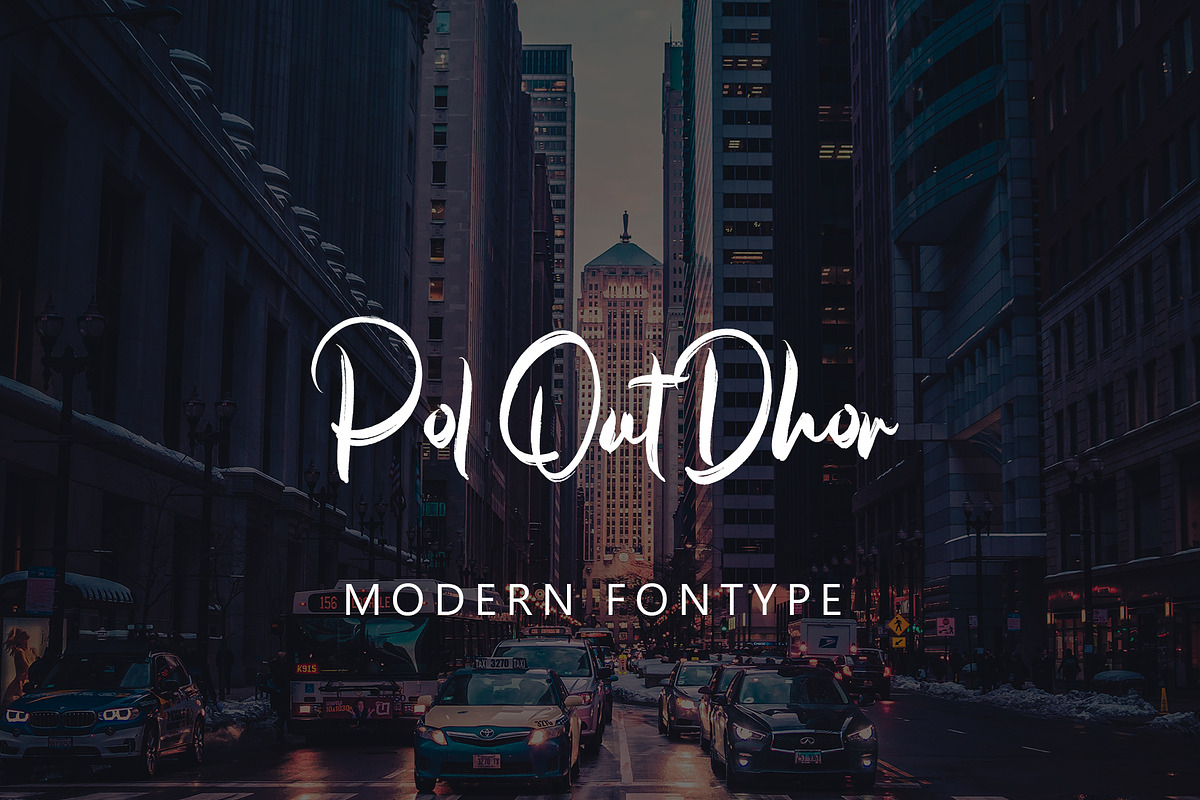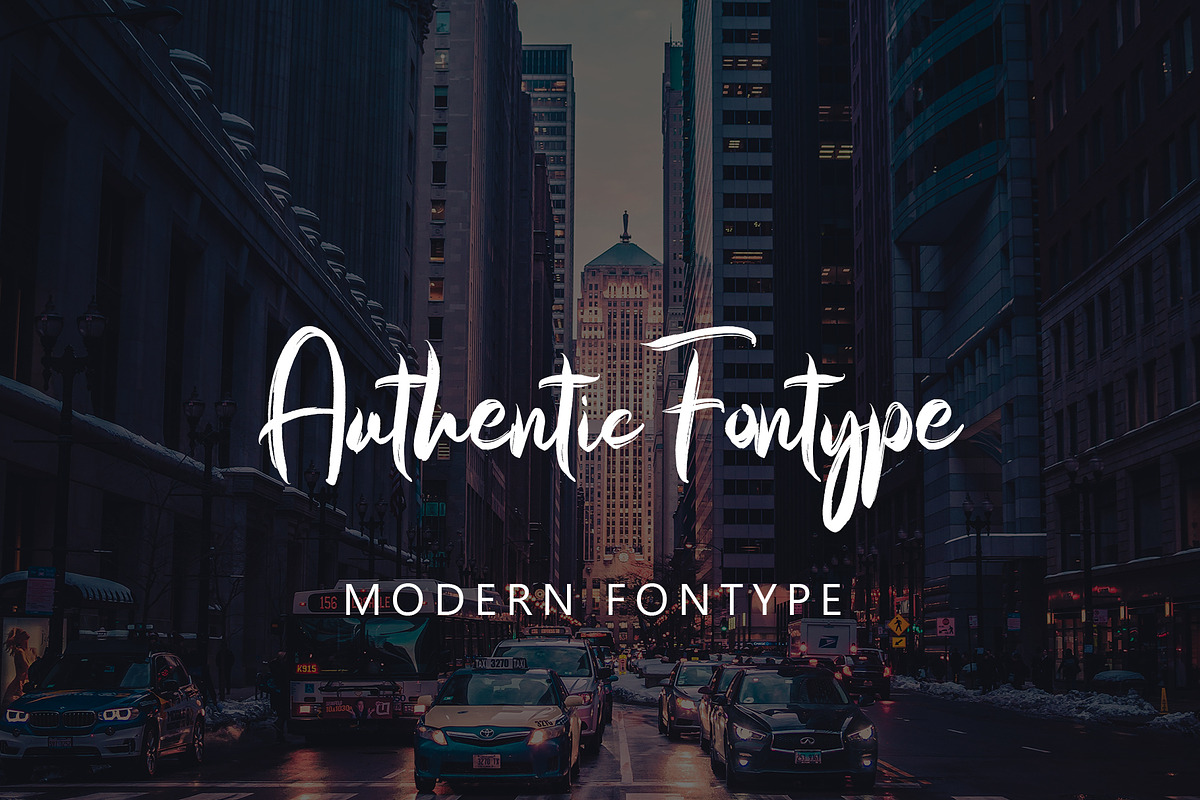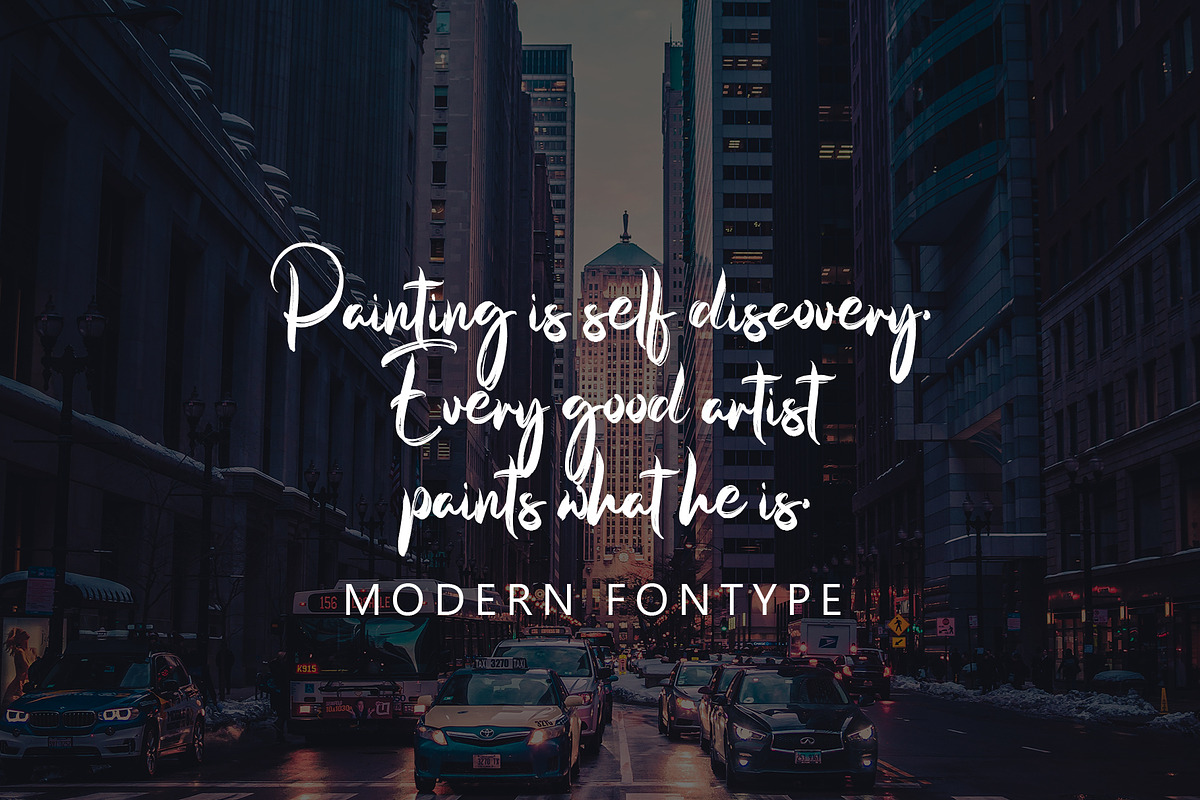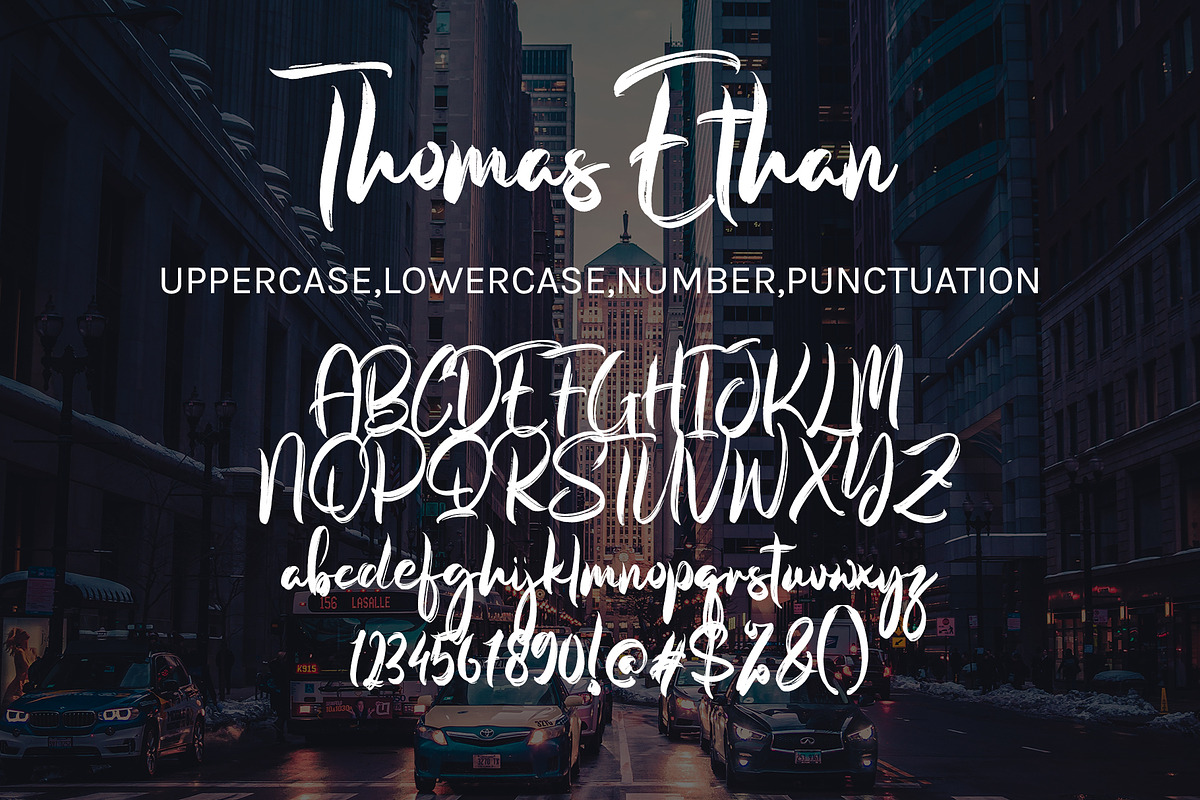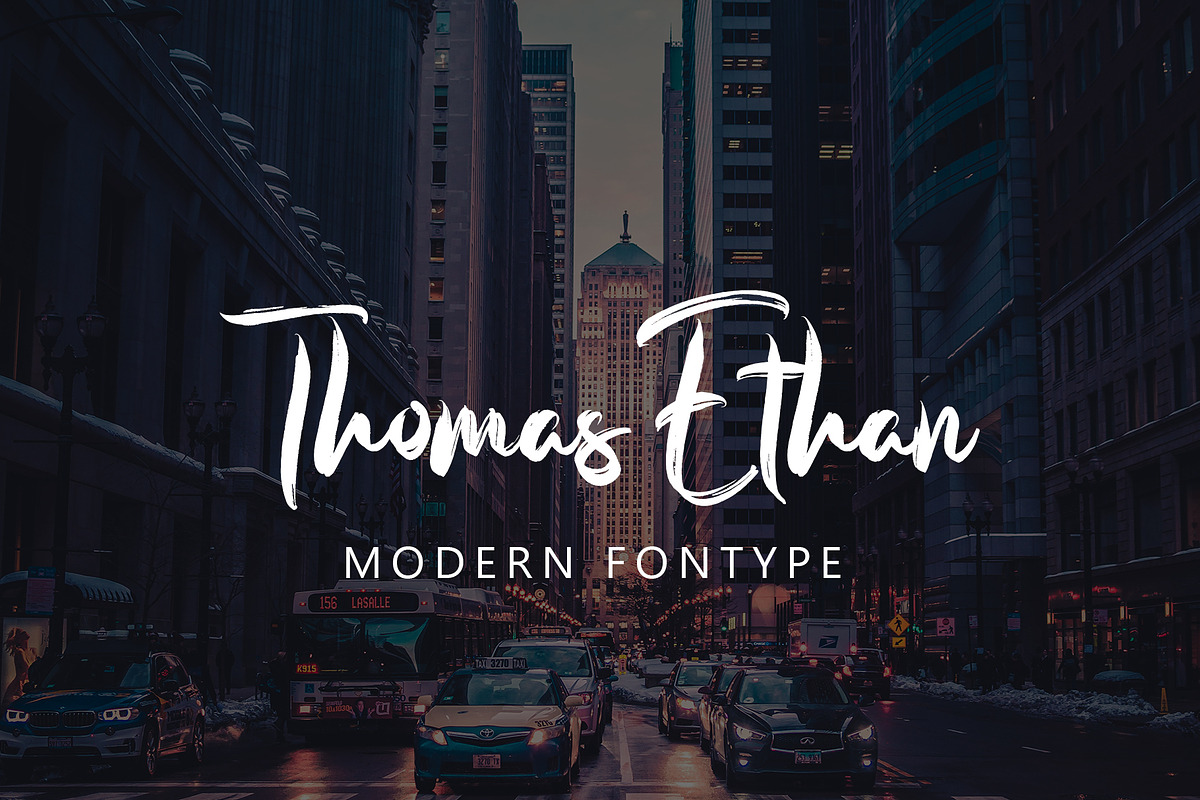
Thomas Ethan
Thomas Ethan with new style, this font will perfect for many different project ex: quotes, logo, blog header, poster, banding, letter, invitation, stationery, etc...